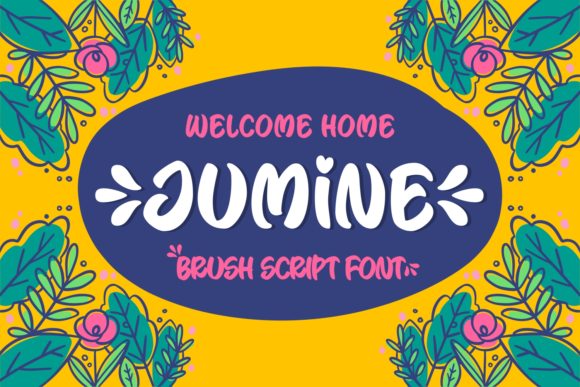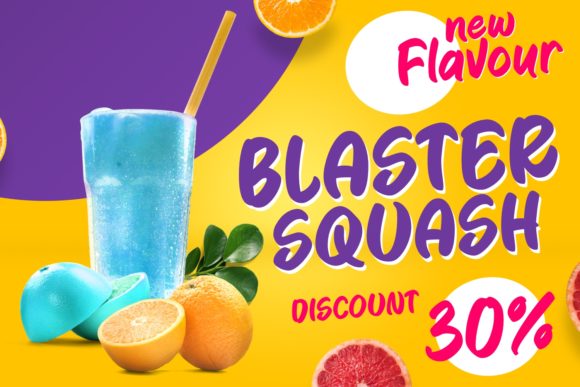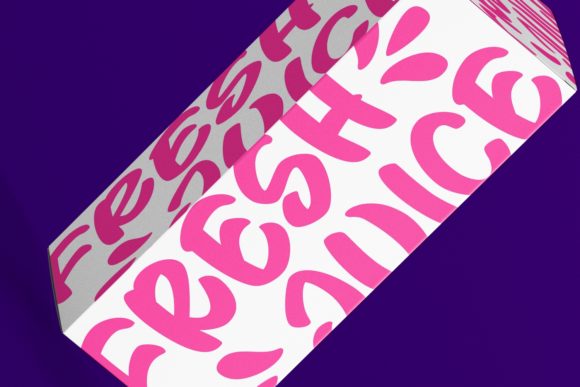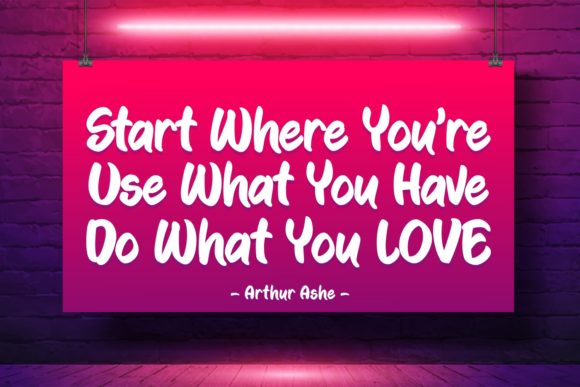
HomeScript FontsJumine Font Script Fonts Jumine Font FacebookXPinterestWhatsApp Jumine Font Poster 2 Jumine Font Poster 3 Jumine Font Poster 4 About Jumine Font Jumine is a friendly and modern script font with a unique style. Fall in love with its playful look & feel! DOWNLOAD ON CREATIVE FABRICAThis font is sold and delivered by Creative Fabrica. Font Canyon may earn a commission if you buy through this link. People also explored Bettina Font Carefree – A handlettered script font Object Font Trophyita Font Angelicy Font Delima Font Sellerina Font Clobot Decorative Typeface Font Carligata Font 367 0 TagsJumine Font Previous articleLoving Hollydate FontNext articleDaphne Haney Font LEAVE A REPLY Cancel reply Comment: Please enter your comment! Name:* Please enter your name here Email:* You have entered an incorrect email address! Please enter your email address here Website: Save my name, email, and website in this browser for the next time I comment. Personal Use Free Calega Personal Use Free Read more about this font Castina Personal Use Free Read more about this font Quentin Personal Use Free Read more about this font Elliane Personal Use Free Read more about this font BLOG Transform Your Website: Elevate Your Typography with 7 Best Web Font Generators Are you ready to transform your website's typography from ordinary to extraordinary? Great! Today, we're diving into the world of web font generators, which... Best Fonts for YouTube Videos: Make Your Thumbnails Stand Out Top 10 Handwritten Fonts That Elevate Your Designs The 10 Best Handwriting Fonts to Add Personality to Your Designs